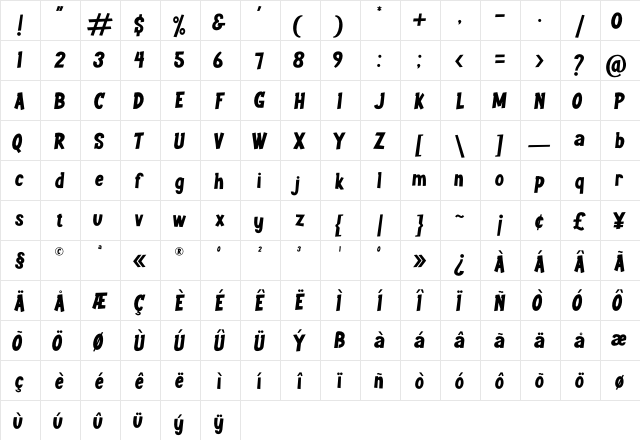
Youth wright Regular
Design Context for Youth wright Typeface
Youth wright is a composed and adaptable typeface that performs quietly and consistently across a wide range of design contexts.